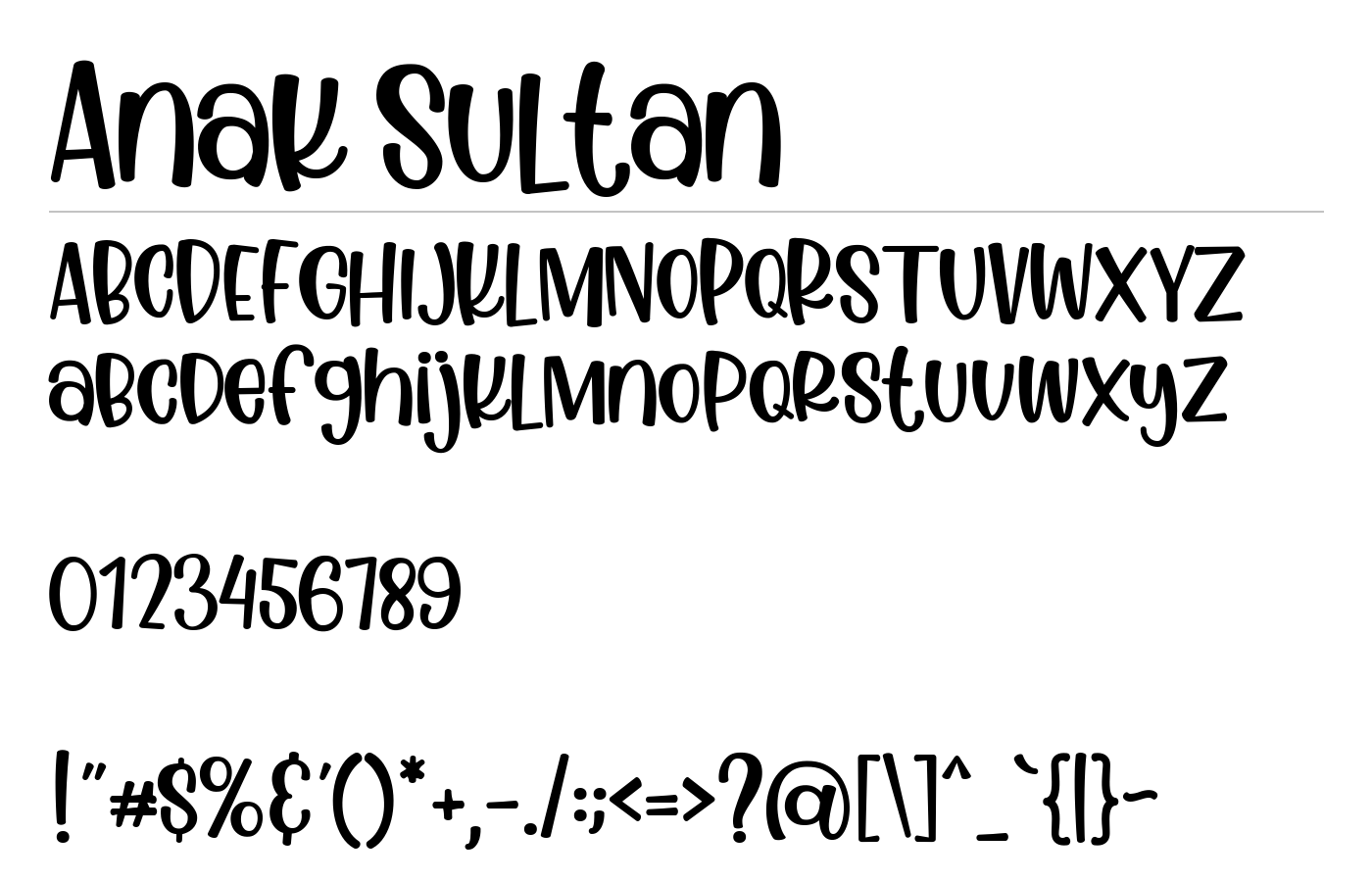
Anak Sultan is a playful and casual sans serif font with a handwritten feel, featuring rounded, slightly irregular letterforms that add a friendly and approachable personality. Its consistent medium weight, moderate x-height, and quirky letter shapes make it ideal for creative projects, children's content, and informal branding where a lively, fun touch is desired. This font works wonderfully for headlines, packaging, and posters that aim to communicate warmth and charm with a modern hand-crafted vibe.
Anak Sultan Font
About Anak Sultan Font
| Font family | Anak Sultan Font |
| Designer | Gumilar Pratama Adiatna |